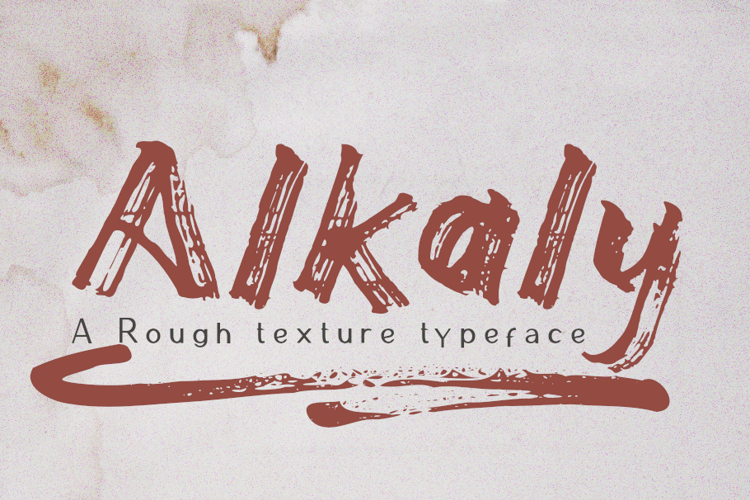
Alkaly Font
About Alkaly Font
Alkaly is a great handwritten font with a natural scratch texture. This font is the perfect fit for all of your logos, branding, social media, and many others